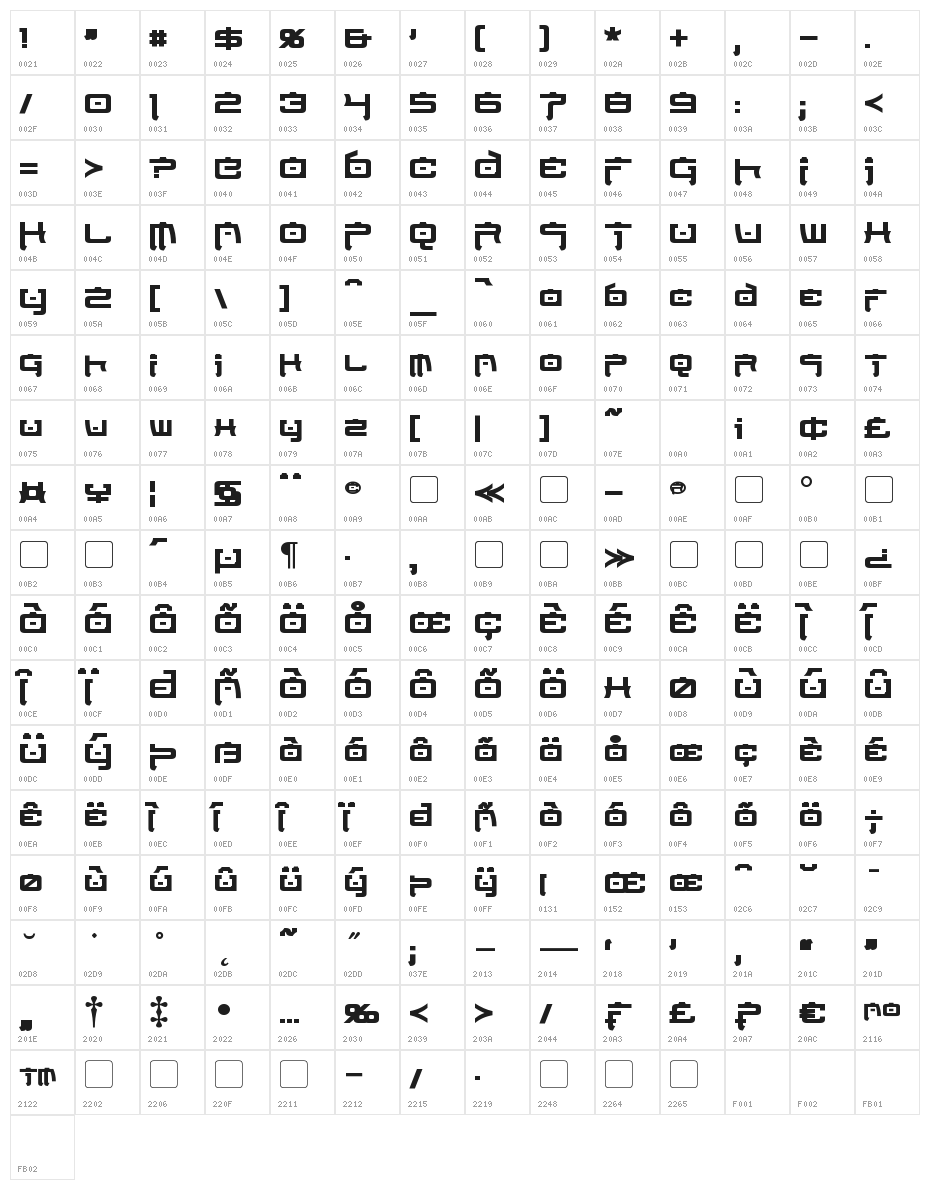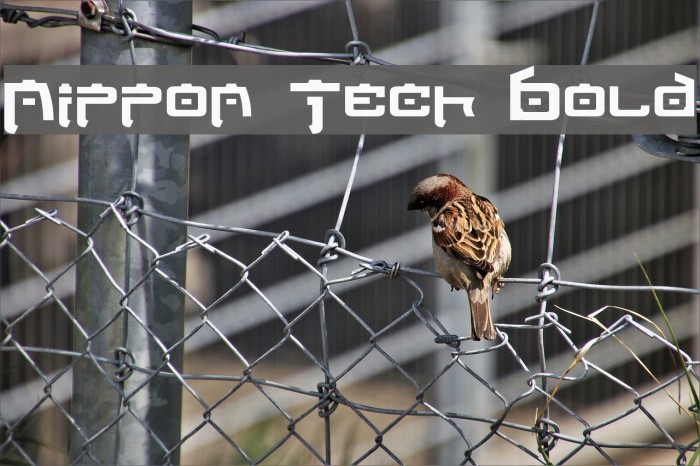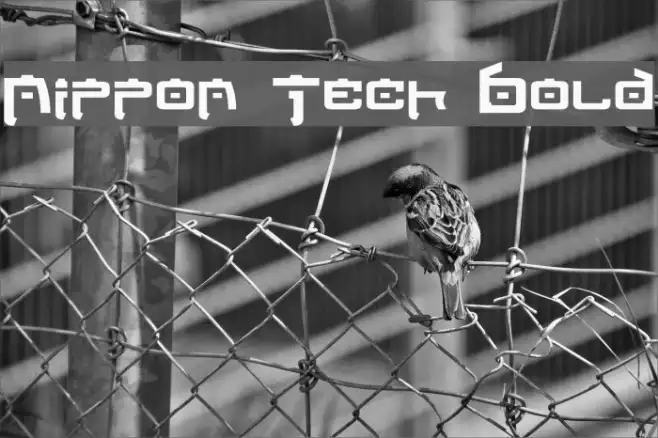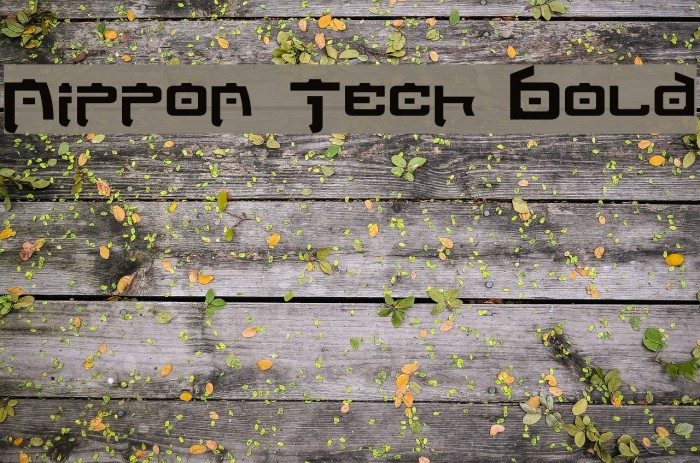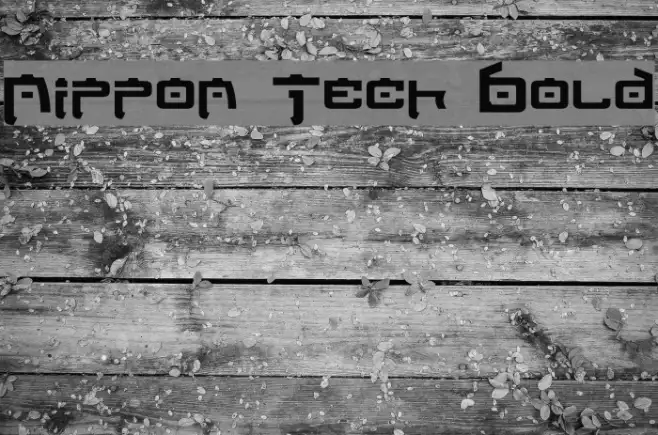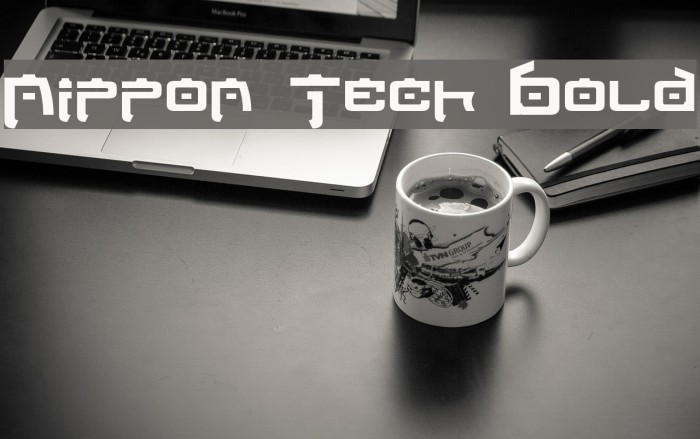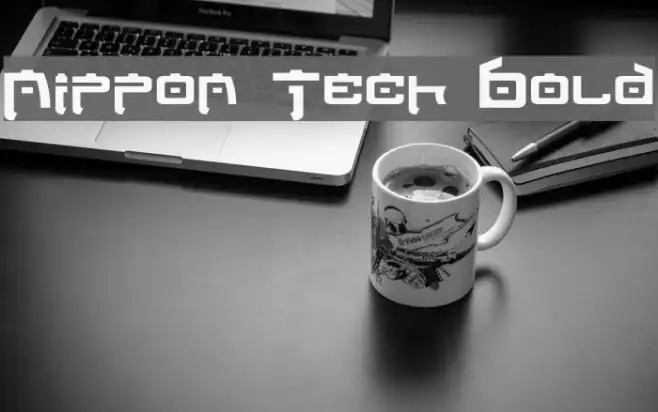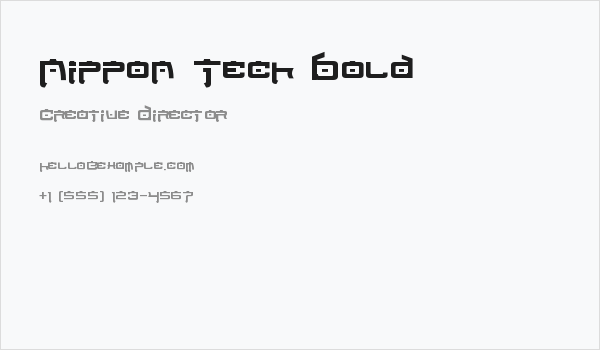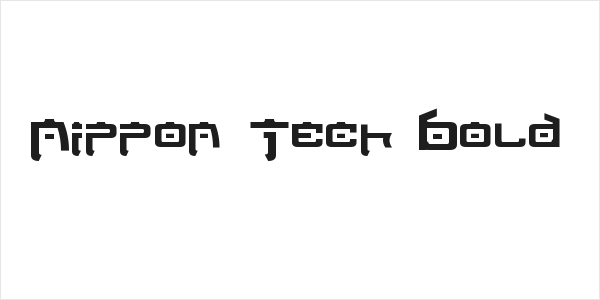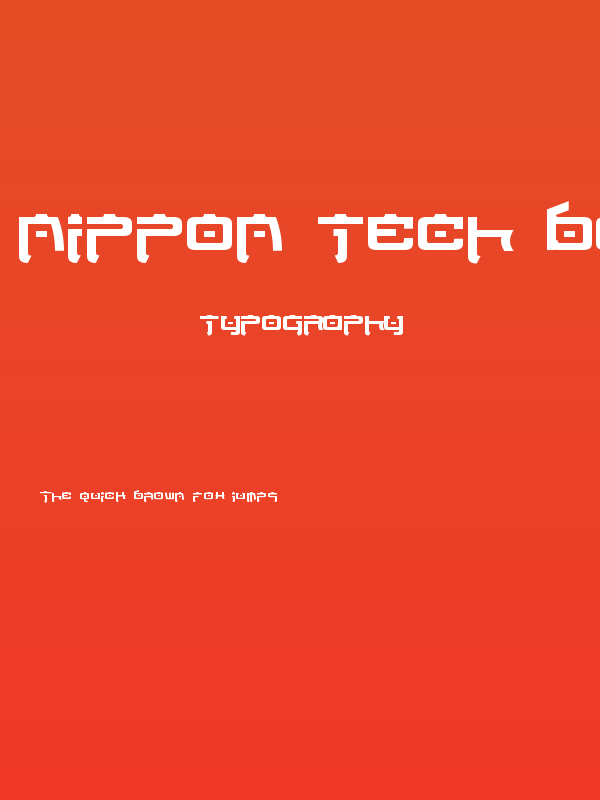
Nippon Tech Bold Font
Nippon Tech Bold Description
This font features a futuristic and tech-inspired design with bold, geometric shapes and sharp angles. The characters have a distinct, blocky appearance with consistent stroke widths, giving it a strong and assertive presence. The uppercase and lowercase letters maintain a uniform style, enhancing readability while retaining a unique aesthetic. The numerals and special characters are designed to match the overall theme, making it suitable for digital and technology-related projects. The font's clean lines and modern look make it ideal for conveying a sense of innovation and cutting-edge technology.
| Proposed Projects | Ideal for technology branding, digital interfaces, video game titles, and sci-fi themed designs. |